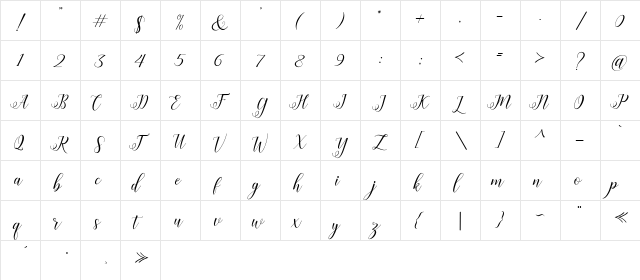
Histeria Script Demo Regular
| Designer | Amarlettering_Kamaruddin |
Design Context for Histeria Script Demo Typeface
Histeria Script Demo brings a calligraphic fluidity to the page — its connecting strokes and expressive curves give it an unmistakably human quality.
Font Pairing: Combine Histeria Script Demo with a simple geometric sans for maximum contrast — the tension between flowing curves and clean structure is a classic typographic pairing.
Pro Tip: Pair Histeria Script Demo with a clean sans-serif for supporting text. The contrast between fluid script and geometric structure creates an elegant typographic hierarchy.